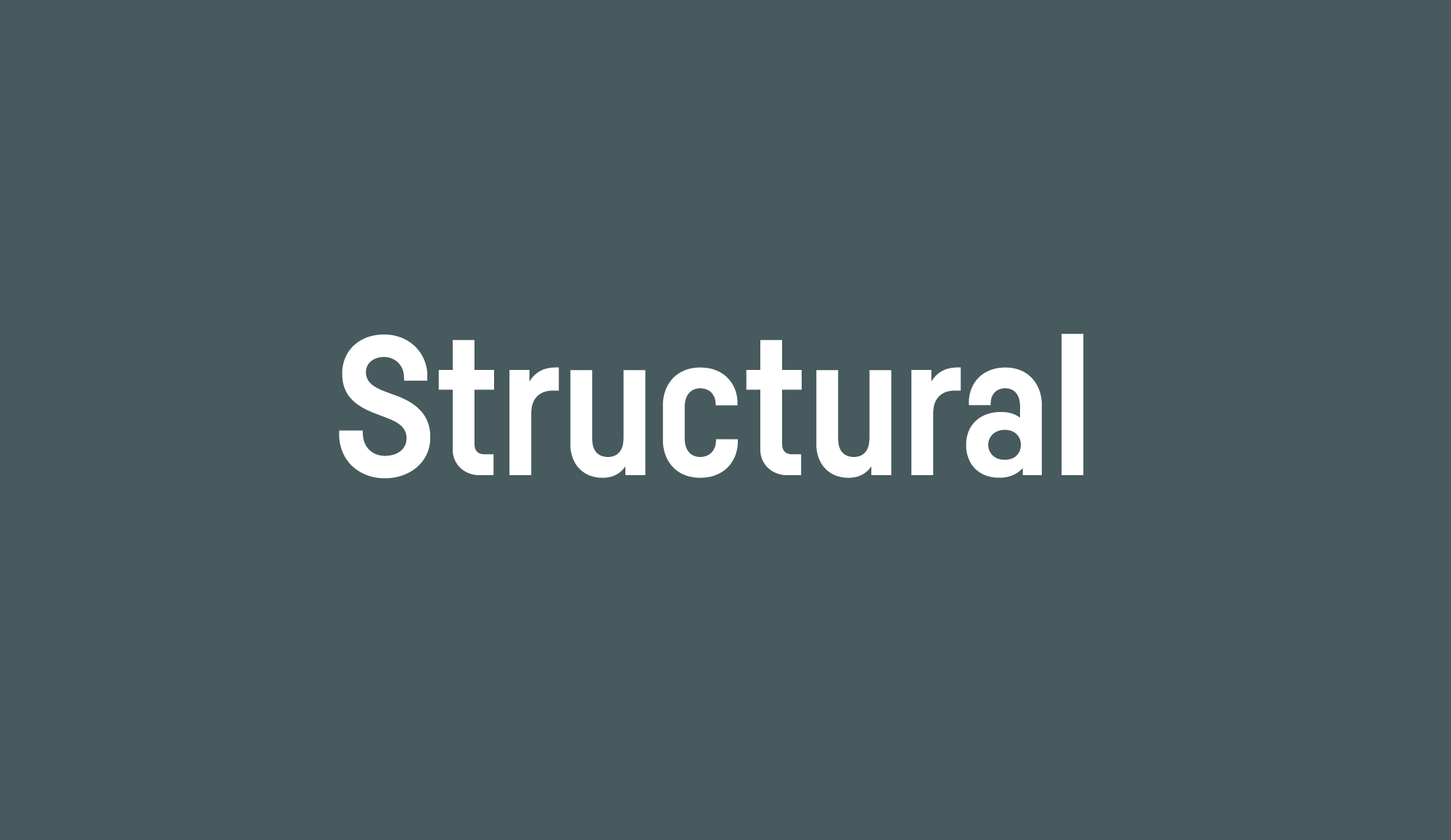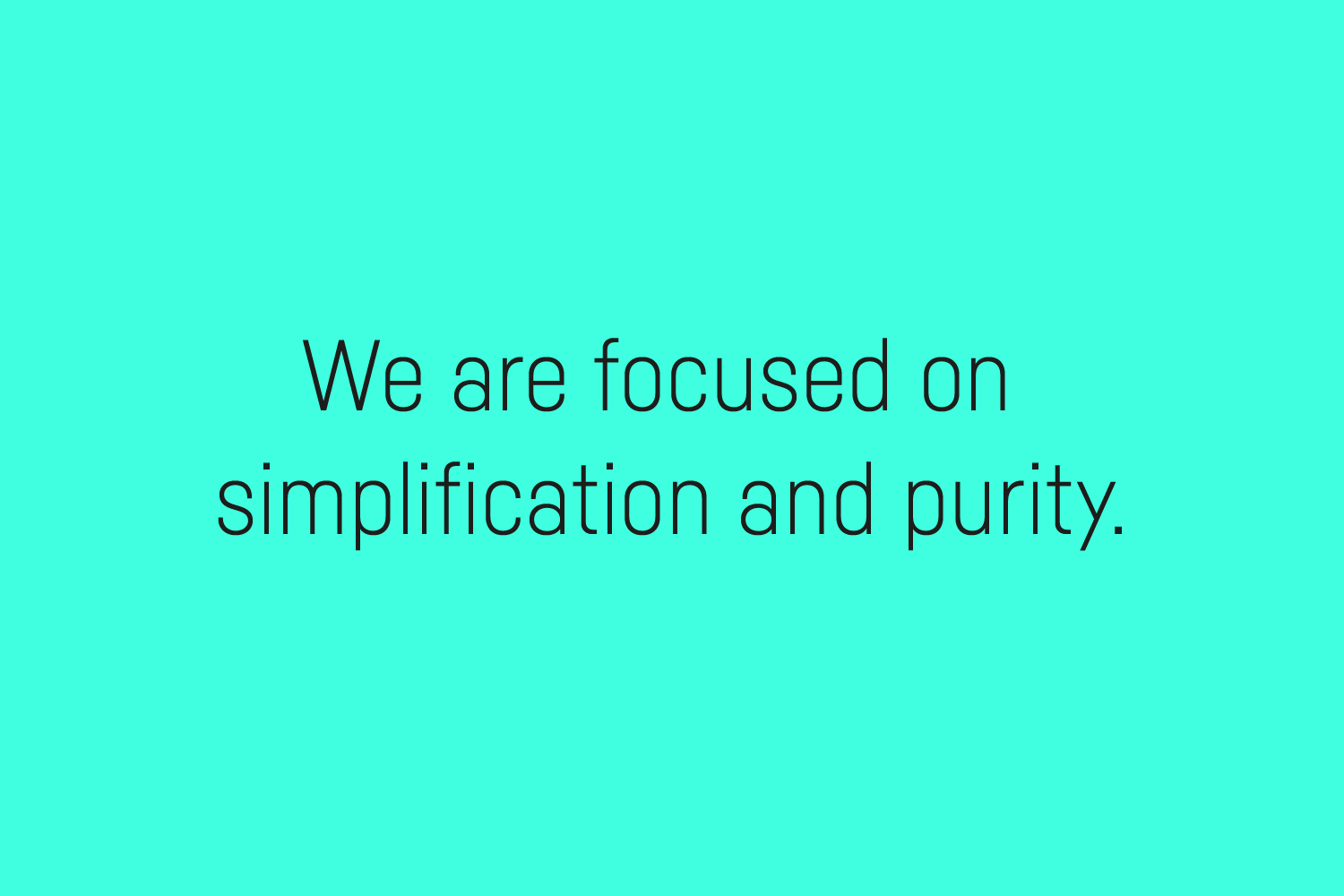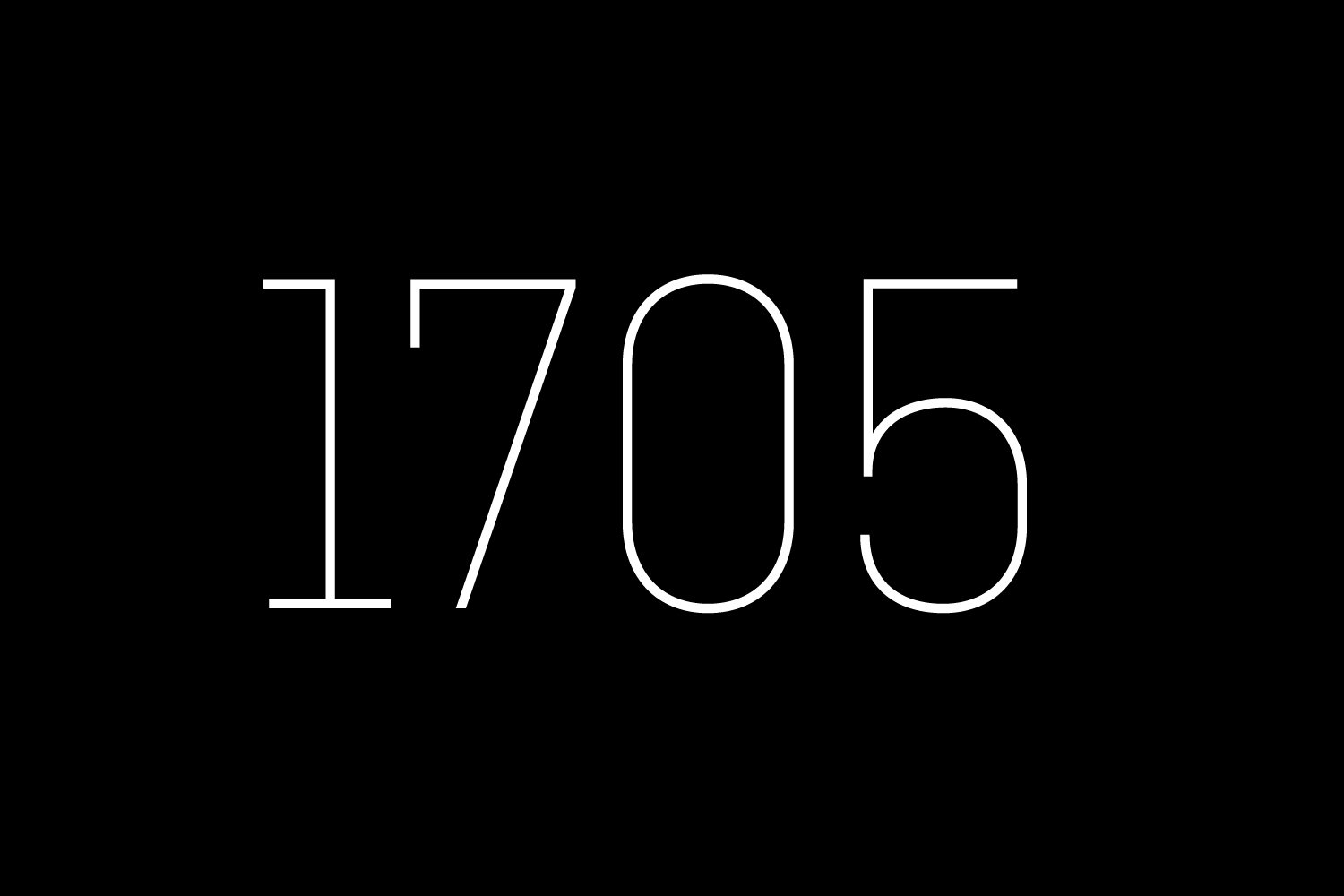
Fabrikat Kompakt
Geometric. Modern. Kompakt.
Fabrikat Kompakt (formally know as Fabrikat) is a type family designed by Christoph Koeberlin with creative input of Hannes von Döhren. The Sans Serif family consists of seven weights plus matching italics. The geometric design is based on German 20th century engineers’ typefaces and has a plain and precise appearance. The shapes are optically corrected, yet retain an uncut charm. They work best in display sizes and headlines. The type family is equipped for complex, professional typography with alternate letters, arrows, fractions and an extended character set to support Central and Eastern European as well as Western European Languages.
Based on German 20th century engineers’ typefaces
Fabrikat Kompakt
Engineering meets Design.
Following several defined principles Fabrikat Kompakt has been constructed on a grid. But a good typeface needs to be optically corrected to feel consistent and to work in texts. So while designing the type family we tried to stay as close as possible to mathematical principles and corrected stems and units just where we felt it is needed. Fabrikat Kompakt’s attitude is seated between design and engineering: Narrow, compact and precise. In addition to the Kompakt family we created Fabrikat Mono to take the approach of simplicity and reduction even further and Fabrikat Normal, a softer version for small sizes.